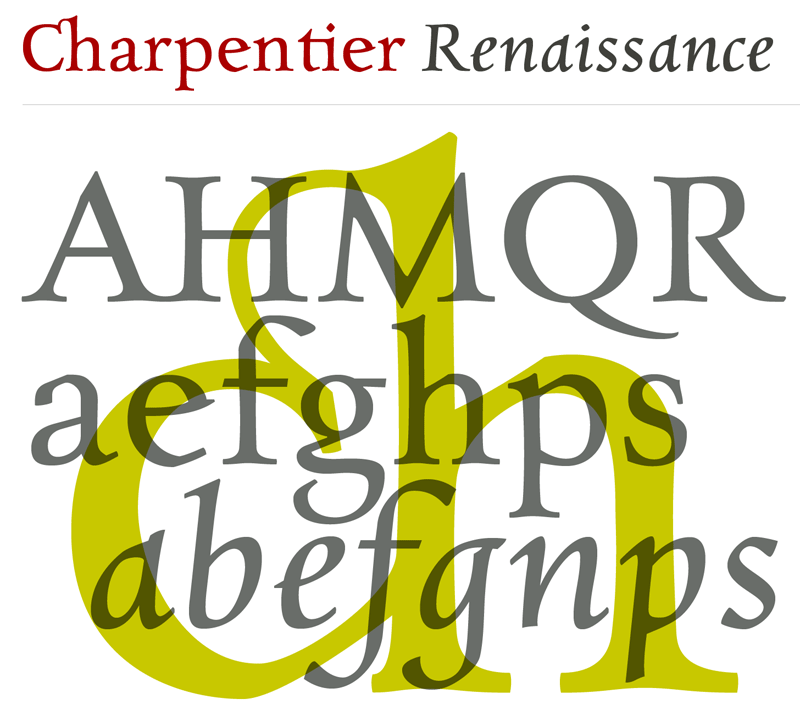
Very legible Renaissance Antiqua with loads of extras. This typeface is based on the desire to create an Antiqua like those which might have existed at the beginning of the “printing age” – the basic form oriented on the classical Roman and early Middle Ages models, the ductus defined completely by writing with a wide pen and much individual expression in detail. The font downloadable here is a reduced version (without punctuation, ligatures, numbers etc.). A commercial version of this font (with all features) is available at www.ingofonts.com. |